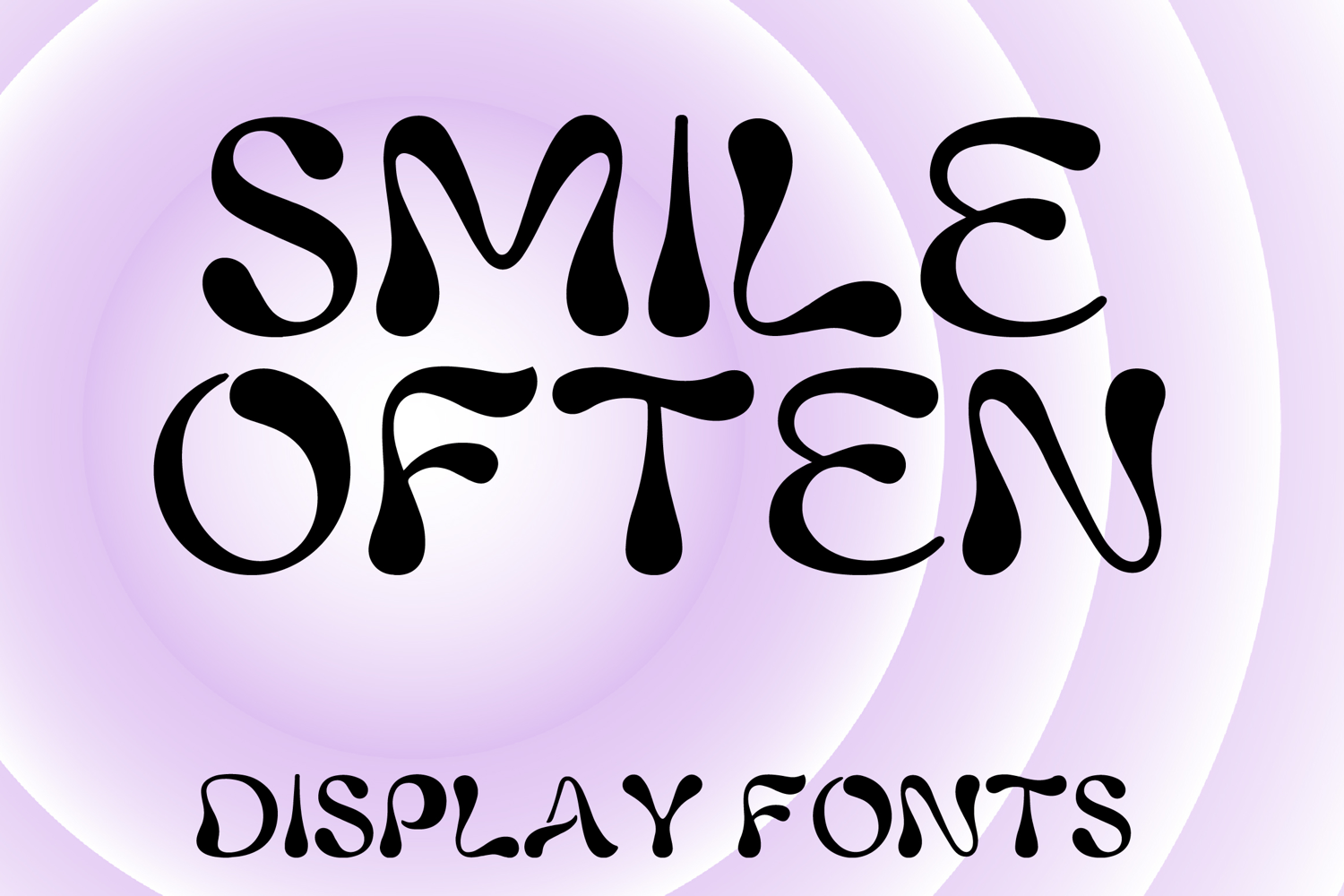
SMILE OFTEN
SMILE OFTEN is a whimsical decorative display font with a bold retro-inspired style and playful artistic charm. Its uppercase letterforms feature flowing curves, soft teardrop terminals, and groovy organic shapes that create a fun, expressive, and eye-catching look. Designed with uppercase letters A–Z and numbers 0–9, SMILE OFTEN is perfect for branding, posters, packaging, quotes, invitations, social media graphics, and creative projects that need a cheerful, stylish, and memorable statement.